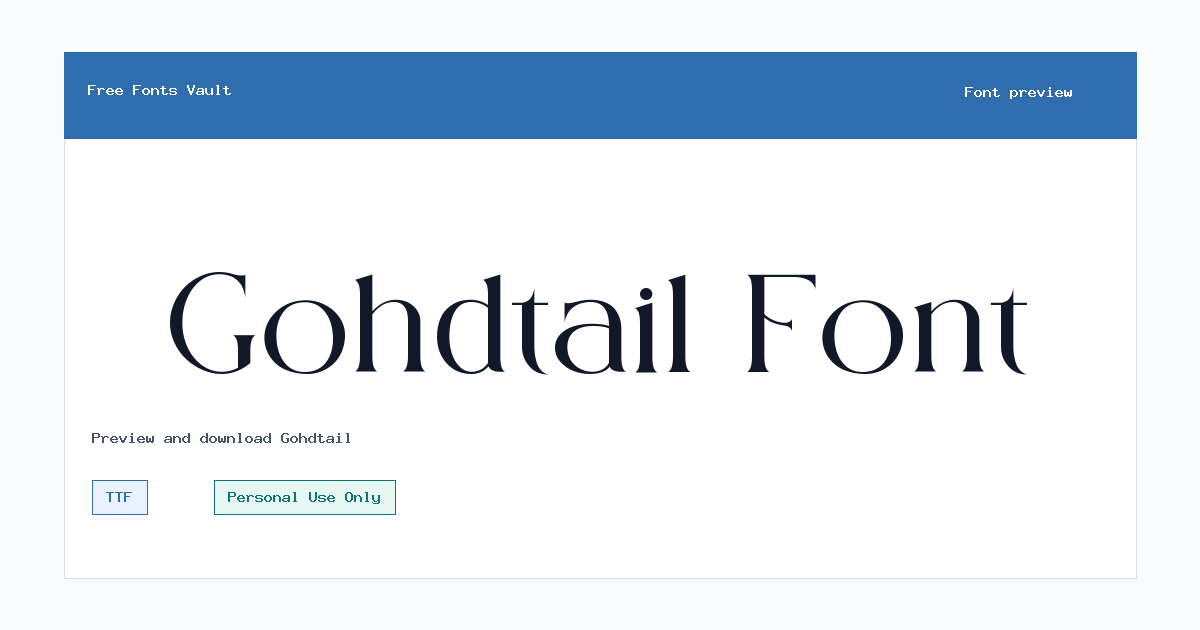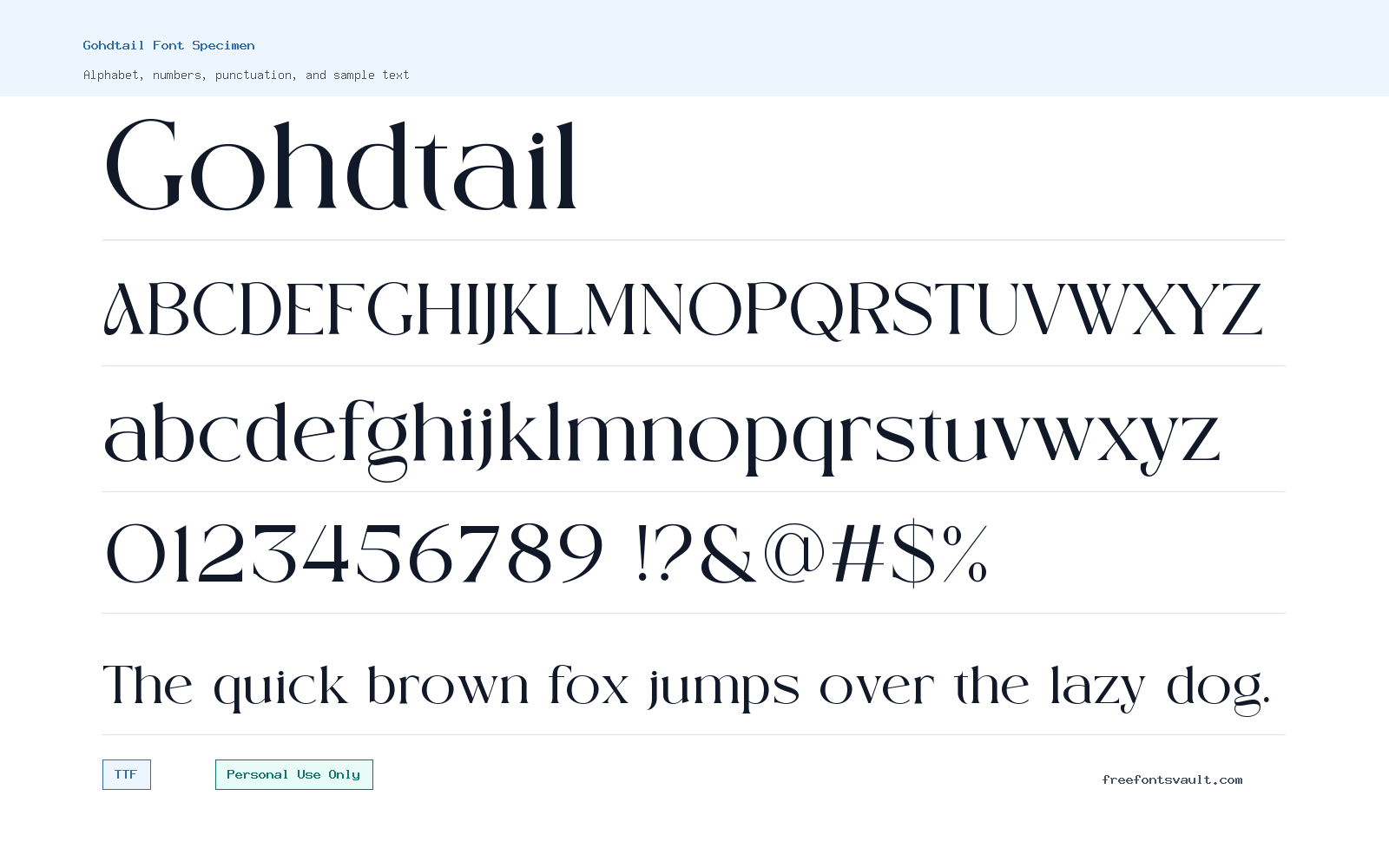
Gohdtail
Gohdtail font.
Gohdtail is a serif display font for designers who want a sharper, more characterful look than a plain text face. It is best tested in short words, headings, logo drafts, poster titles, and other places where the shape of the letters can be part of the design.
About Gohdtail Font
Gohdtail works as a display-first serif rather than a long-reading body font. The name and file information identify it as Gohdtail, with a regular 400 style in normal upright form. That means visitors should expect one main style to test, not a large family with separate bold, italic, or light weights. Use the preview box to check the words you actually plan to use, because display serifs can change their feel quickly depending on letter combinations, spacing, and capitalization. Try a brand name, a short phrase, a poster headline, and a few numbers before downloading.
Pairing Gohdtail with a quiet sans serif is usually the safest direction. A simple grotesk or humanist sans can handle menus, captions, small labels, and body copy while Gohdtail carries the headline or logo text. If you pair it with another decorative serif or script, the layout may become busy and harder to read. For clean results, let Gohdtail do one job at a time: a title, a wordmark draft, a pull quote, or a short callout. Test both uppercase and title case, then adjust tracking if the letters feel too tight or too loose.
- Regular upright style with 400 weight identified
- Serif display character suited to short text and headline testing
- Useful for logo drafts, poster titles, web mockups, and personal design studies
- Best supported by a simpler companion font for body text and interface copy
- Logo concepts and personal wordmark experiments
- Poster headlines and title graphics
- Website hero mockups and landing-page headings
- Invitation-style layouts, moodboards, and presentation visuals
- Short quotes, labels, and display text where readability can be checked at larger sizes
Test Gohdtail with the exact words you plan to use, especially for logos and posters. Keep it at display sizes, pair it with a simpler sans serif for longer text, and use spacing, scale, and contrast to build hierarchy since only one regular style is identified.
Does Gohdtail include bold or italic styles?
Only a regular, normal upright style with 400 weight is identified. If you need stronger hierarchy, use size, spacing, color, or pair it with another font family that has more weights.
What kind of projects suit Gohdtail?
Gohdtail is best for short display text such as logo concepts, poster titles, heading mockups, quote graphics, and personal design studies. It is not the safest choice for long paragraphs or small interface text.
What should I pair with Gohdtail?
Pair it with a clean sans serif for body copy, captions, navigation, and supporting text. Avoid using too many decorative fonts in the same layout, because that can reduce clarity.